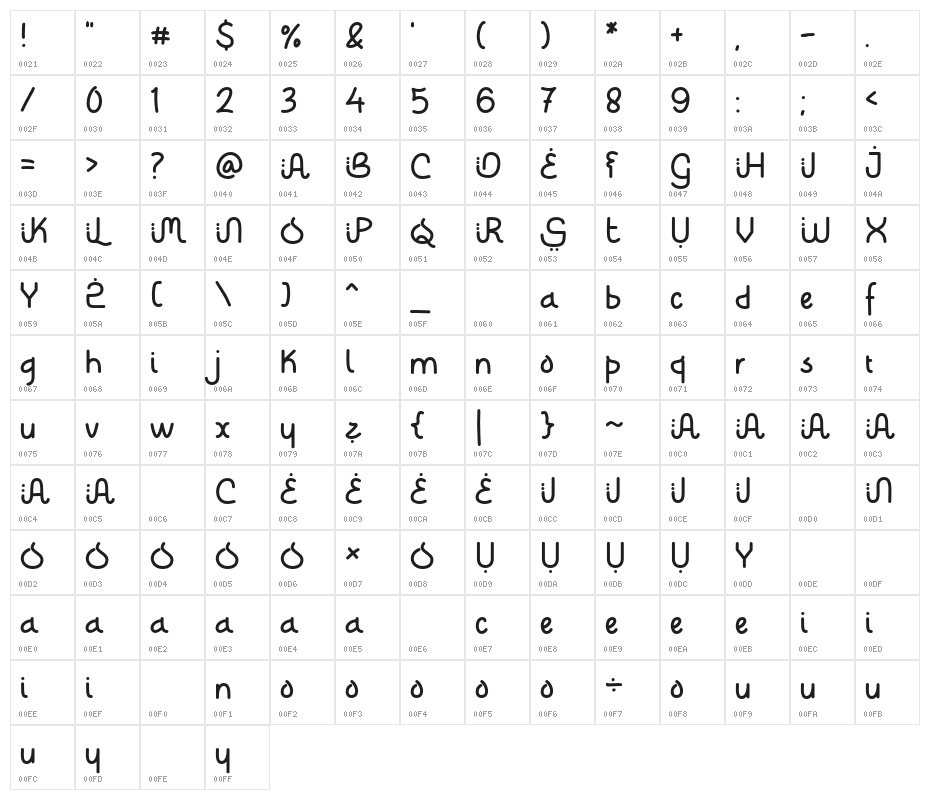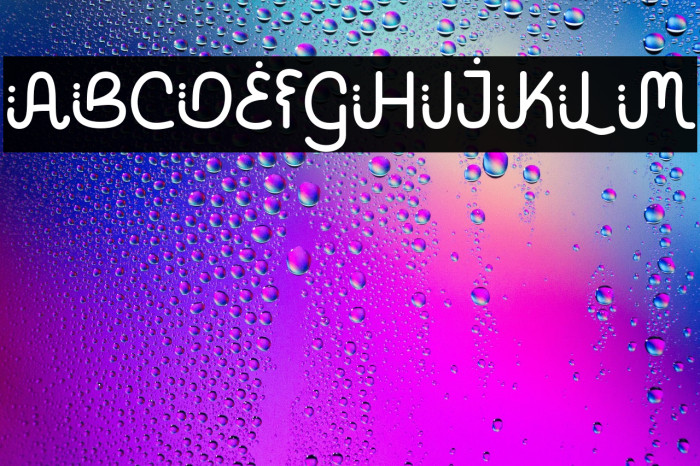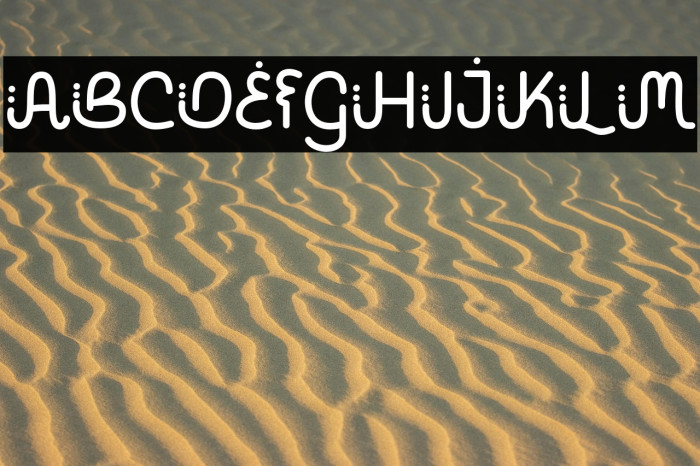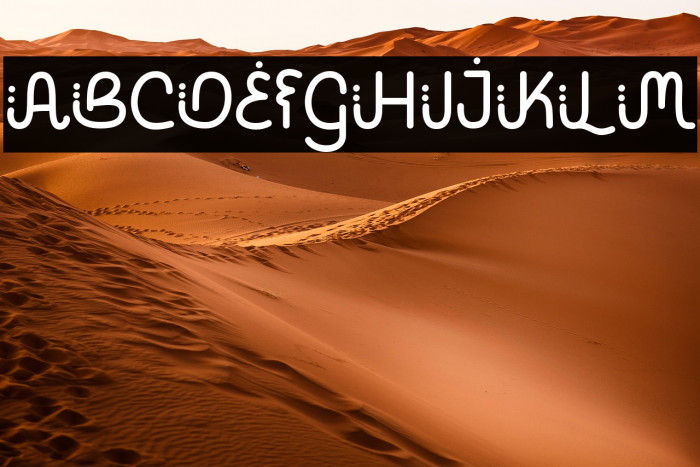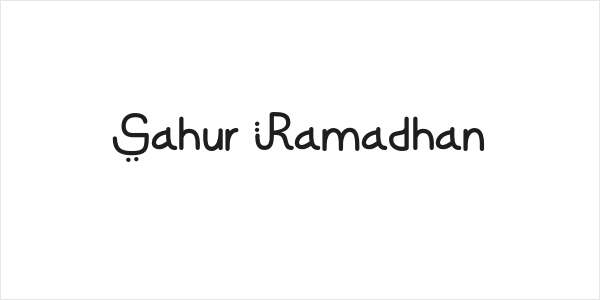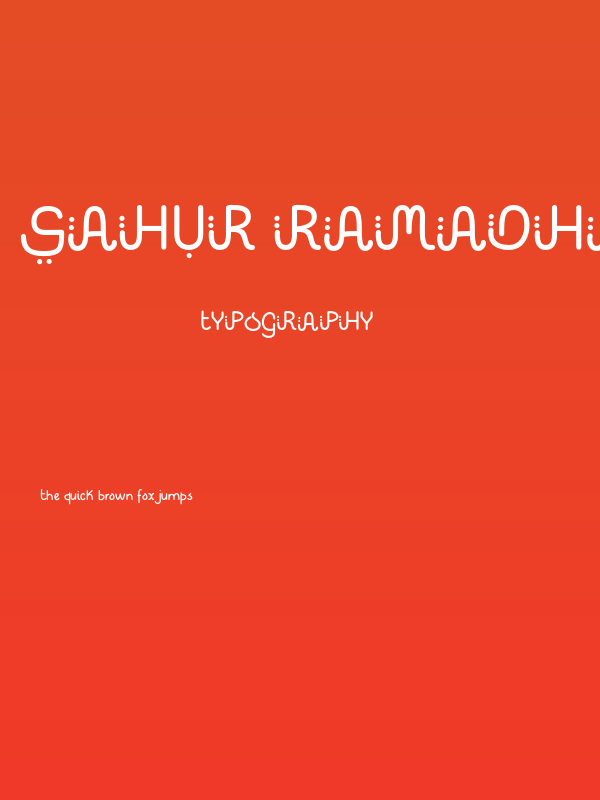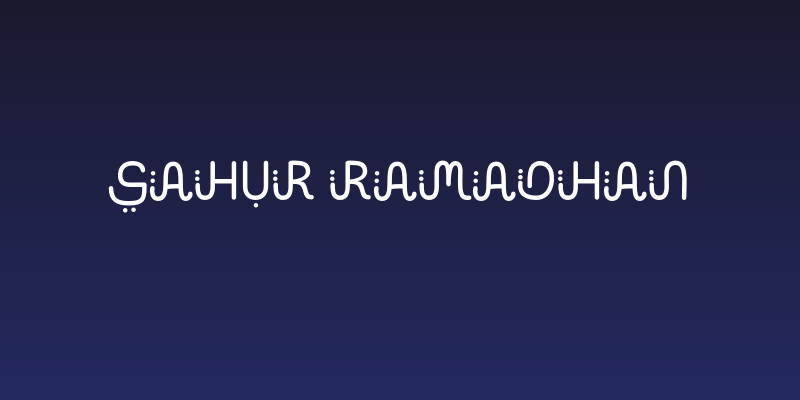
Sahur Ramadhan Font
Sahur Ramadhan Description
This playful and decorative font features a unique design with rounded edges and whimsical accents, such as dots and curves, that give it a lively and engaging appearance. The uppercase letters are distinct with their bold, rounded forms, while the lowercase letters maintain a consistent style that complements the uppercase. The numerals are clear and easy to read, with a similar playful touch. Special characters are included, maintaining the font's overall aesthetic. This font is perfect for projects that require a fun and informal tone, making it ideal for children's books, playful branding, or creative invitations.